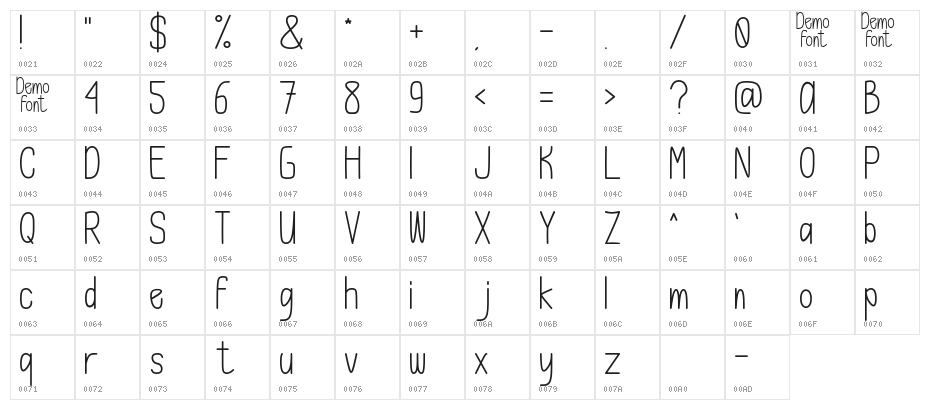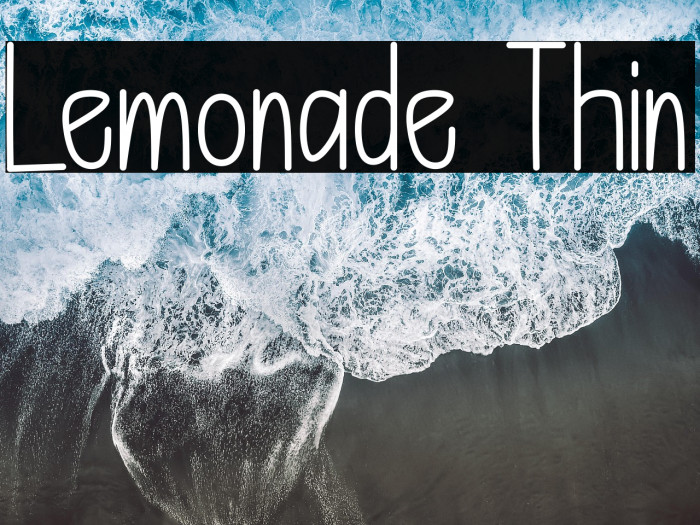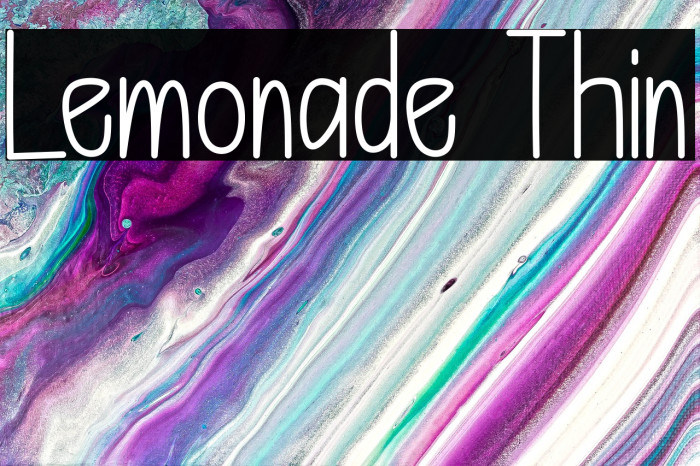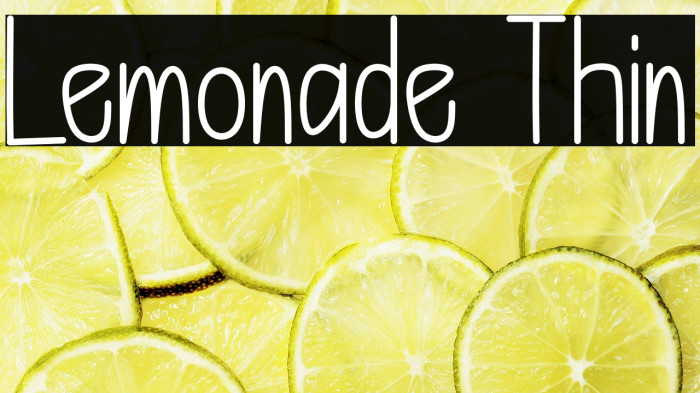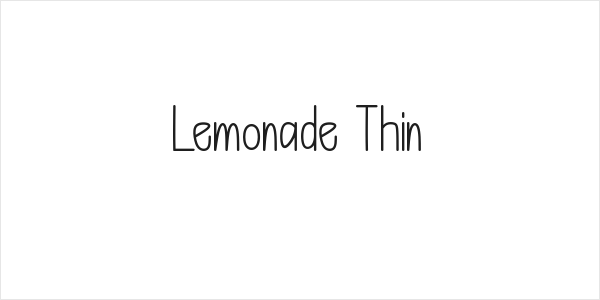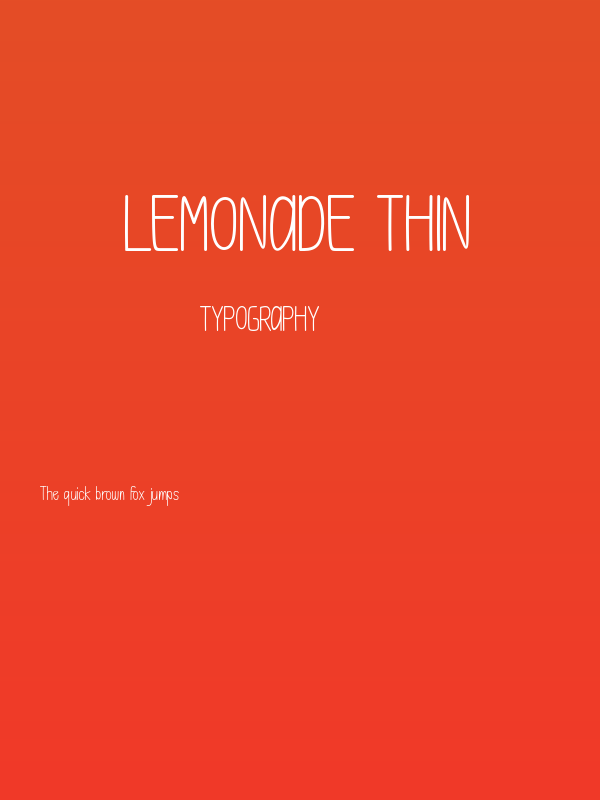
Lemonade Thin Font
Lemonade Thin Description
This font features a playful and whimsical style with tall, narrow letters that have a hand-drawn appearance. The strokes are consistent in thickness, giving it a uniform look. The characters are slightly rounded, adding a friendly and approachable feel. The uppercase and lowercase letters maintain a cohesive design, while the numerals and special characters complement the overall aesthetic. This font's thin lines and unique character shapes make it stand out, ideal for creative and informal designs.
| Proposed Projects | Ideal for children's books, greeting cards, playful branding, and creative posters. |